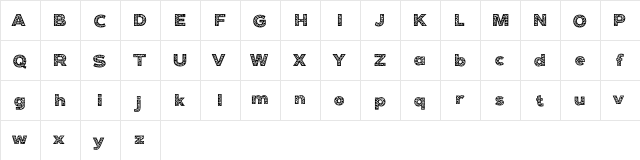
Cheetah Regular
| Designer | Dicky Syafaat |
Design Context for Cheetah Typeface
Cheetah takes a measured approach to typography — its balanced proportions and neutral character make it a reliable workhorse for both digital and print work.